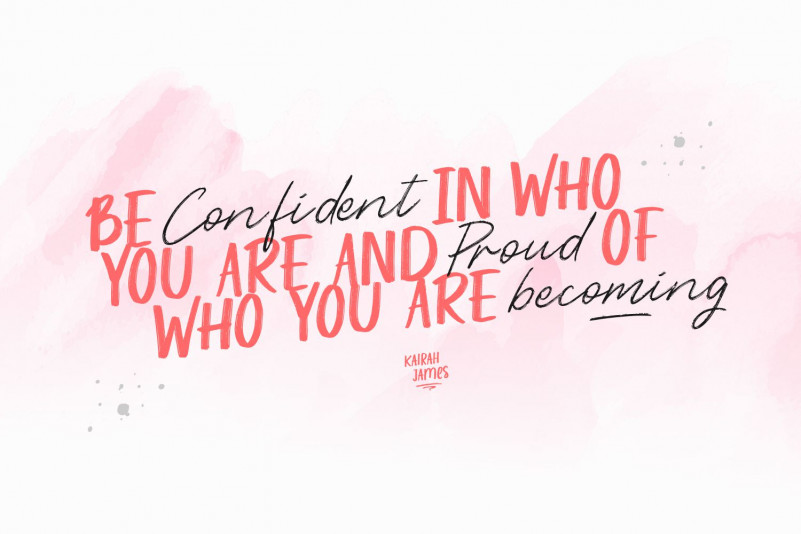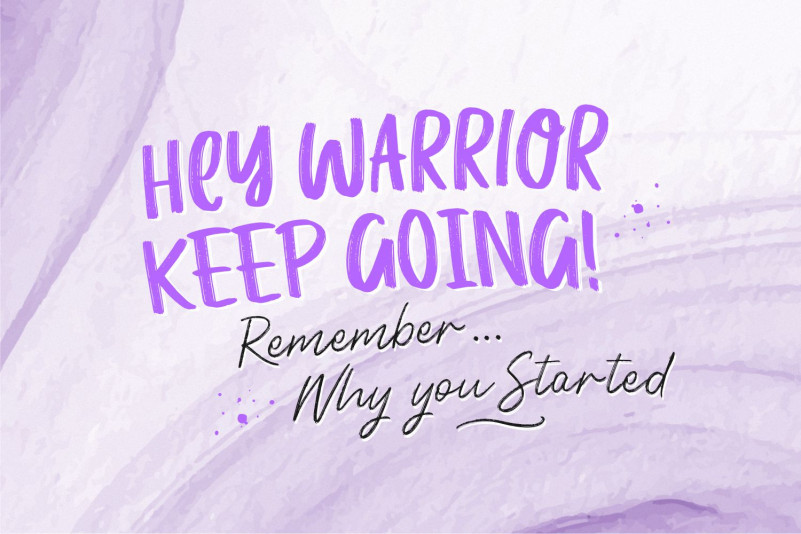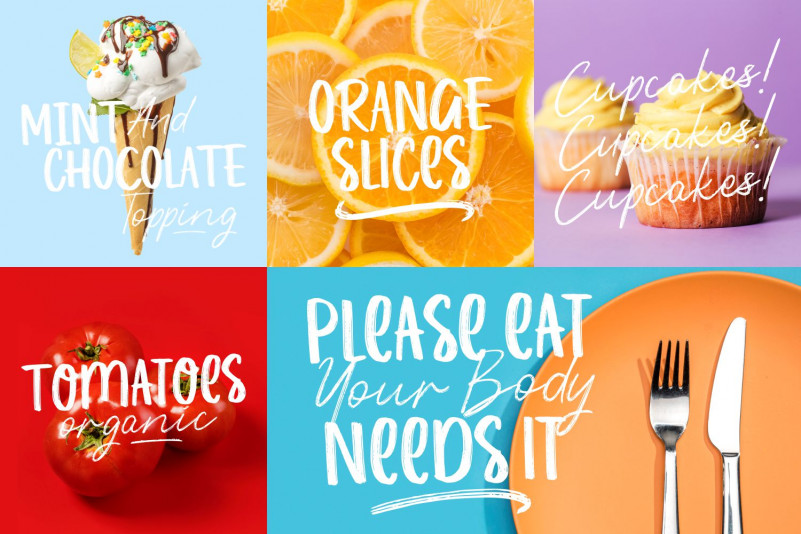
Happiness Machine Script Font
It\’s a lovely brushed duo font (display and script). Whatever the topic, this font will be a wonderful asset to your font library, as it has the potential to enhance any creation.